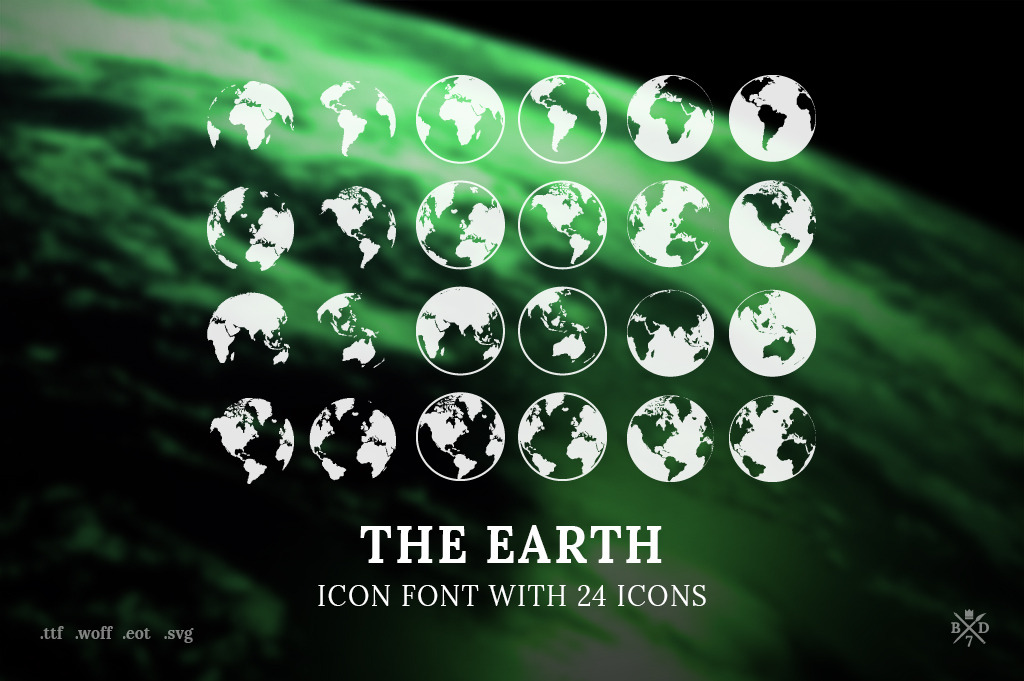
The Earth - Icon font with 24 icons
The Earth is an icon font with 24 beautiful icons of the earth. Together with a html documentation and a svg help demo you will get a .ttf, .woff, .eot and .svg file for your operating system (Mac, Windows, ...) and your website or mobile application.